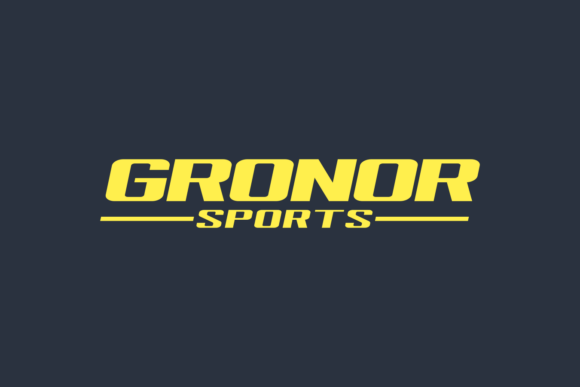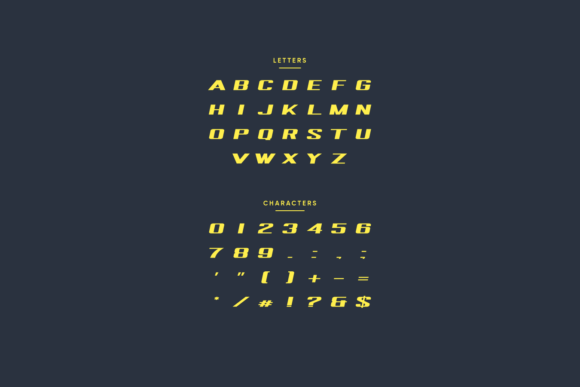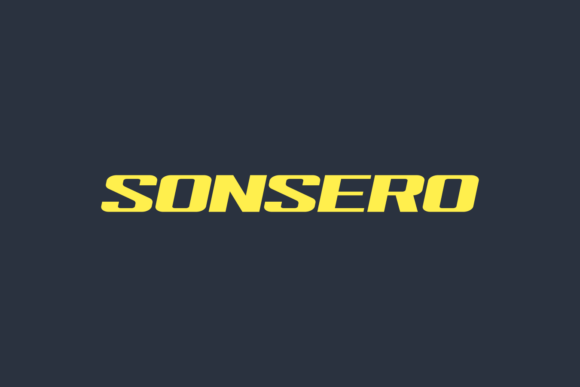
Introduction to Croser Font
Croser is a modern display font built specifically for sports branding, headline, and more prominent typography needs.
This font comes with a new and fresh all-caps style, it will make your design more memorable, itโs perfect for adding this font to sports, tech, action and future themes Croser was created for bold action style and a modern feel, so enjoy creating any project that will showcase your main ideas.